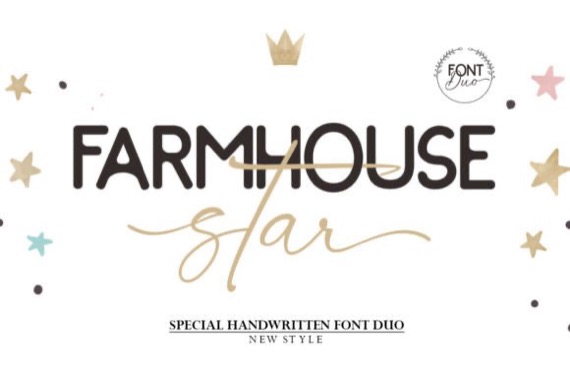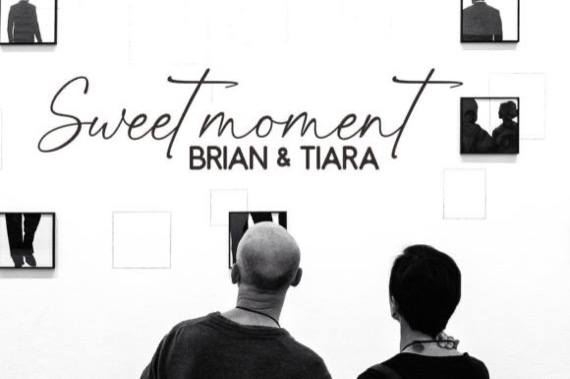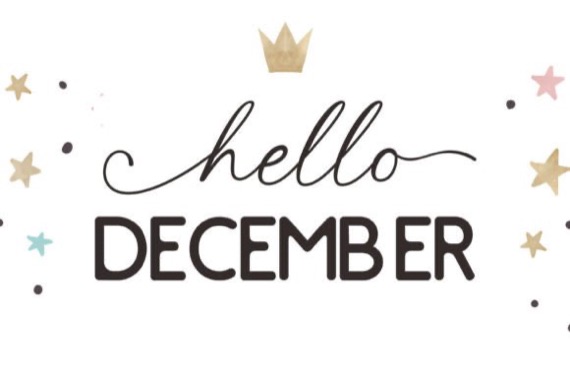
Farmhouse Star Sans Script is a clean cool and modern sans-serif duo. It’s suitable for a wide spectrum of applications. From greeting cards to headlines, this font will guarantee a romantic touch to each of your creations! Farmhouse Star Duo is PUA encoded which means you can access all of the glyphs and ligatures with ease.
Farmhouse Star Sans Serif Font Duo